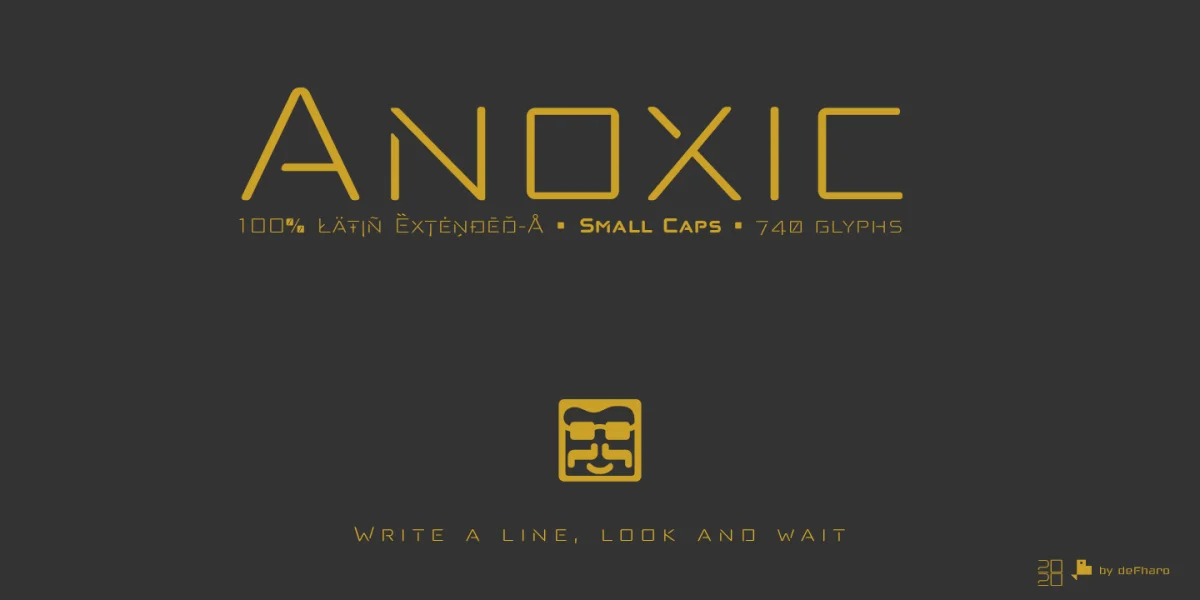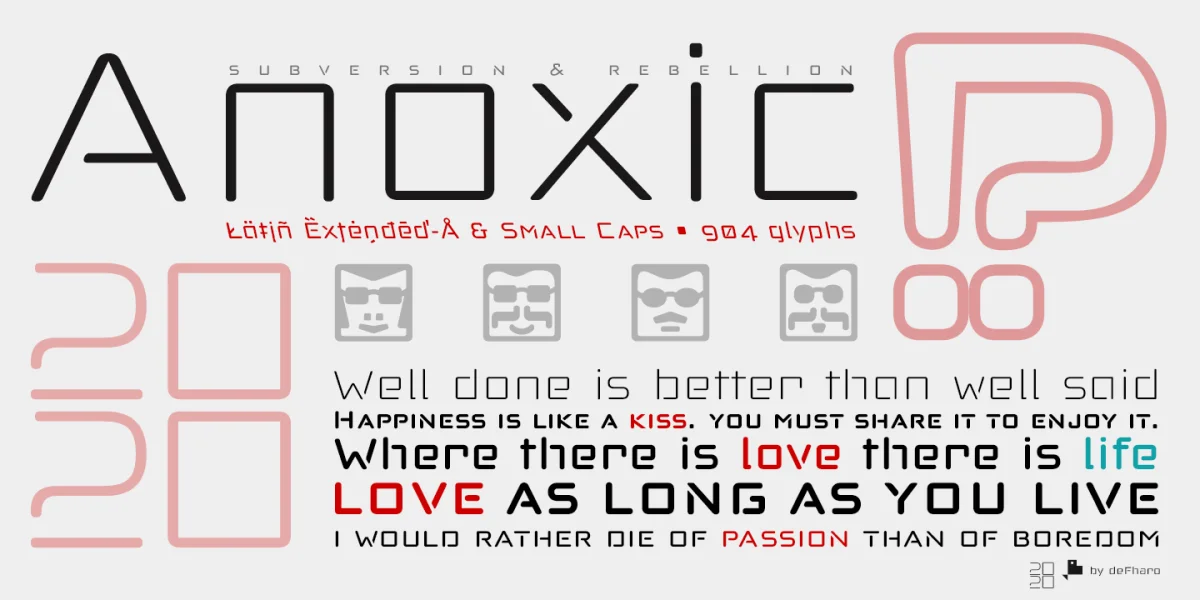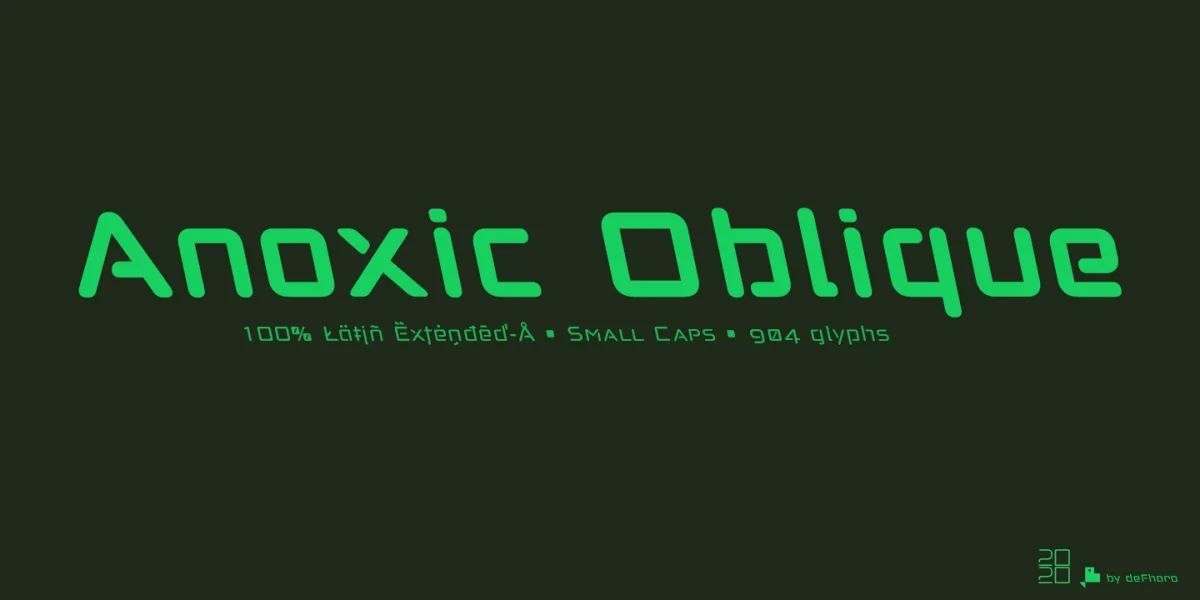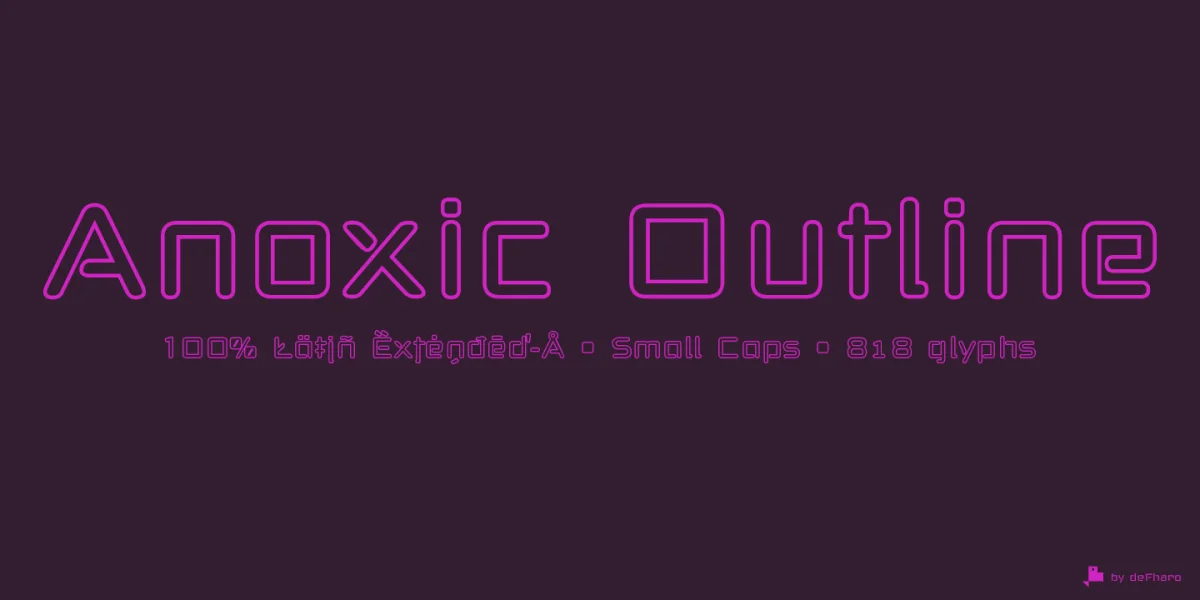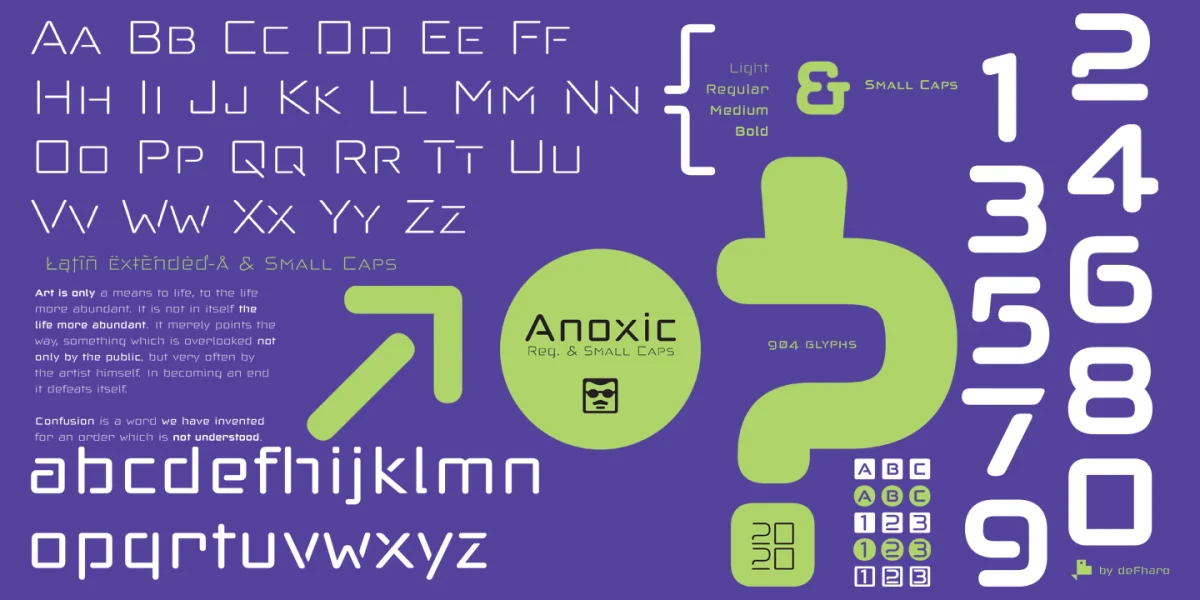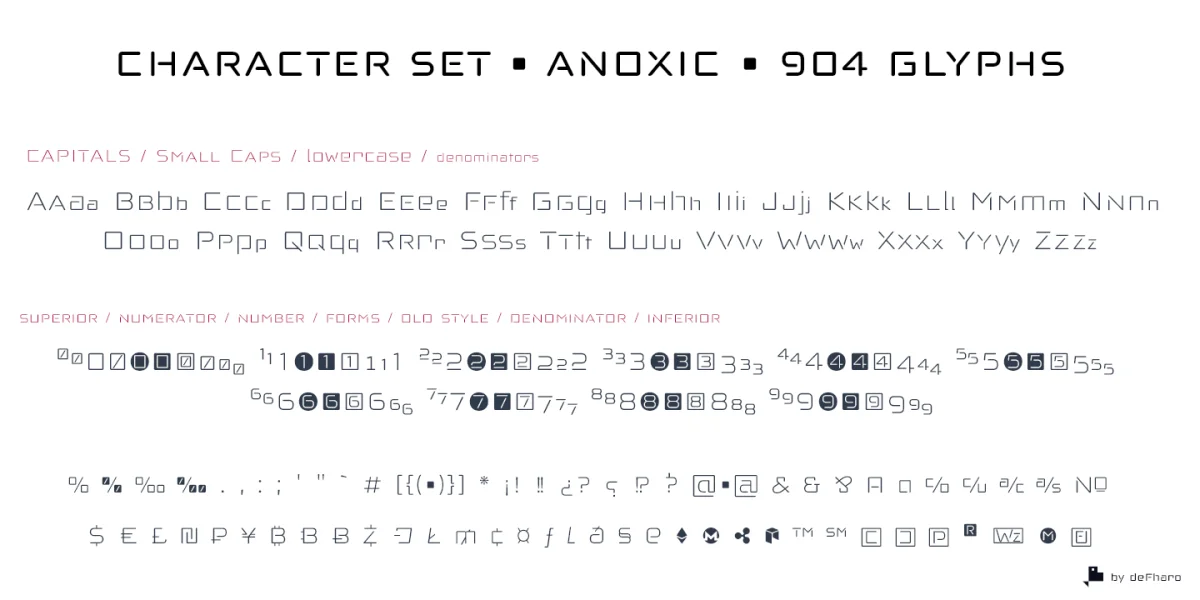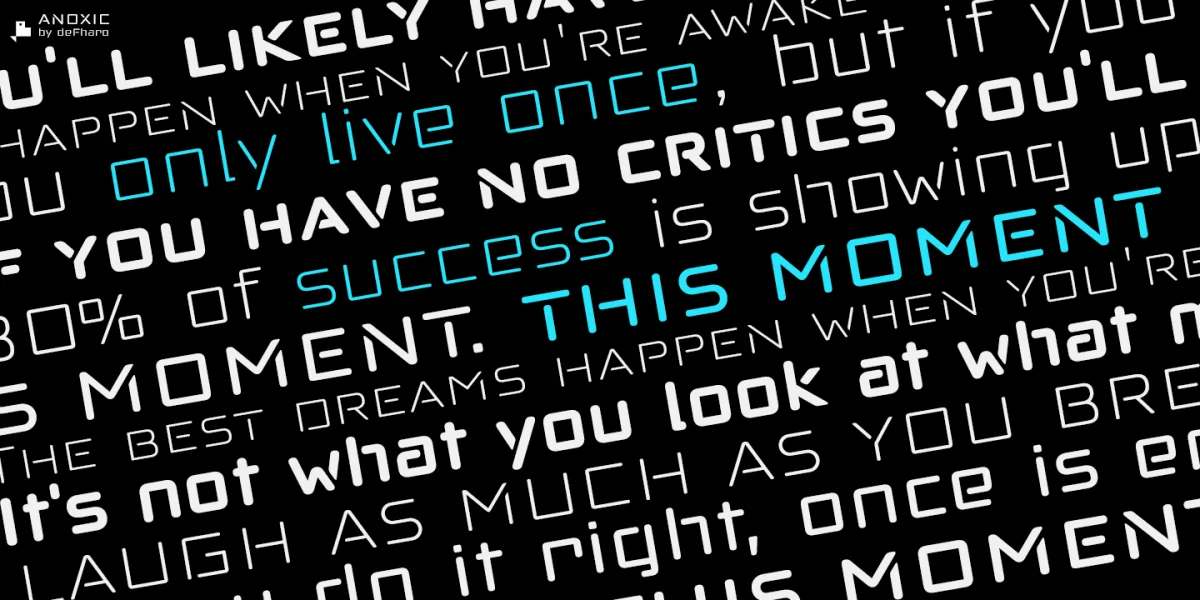
Anoxic is a Semi-Stencil typeface family with a rounded finish with 16 styles in 4 families, Roman, Small Caps, Outline & Oblique, including small letters, 9 number sets and 3 uppercase letters set, plus advanced Open functions Type.